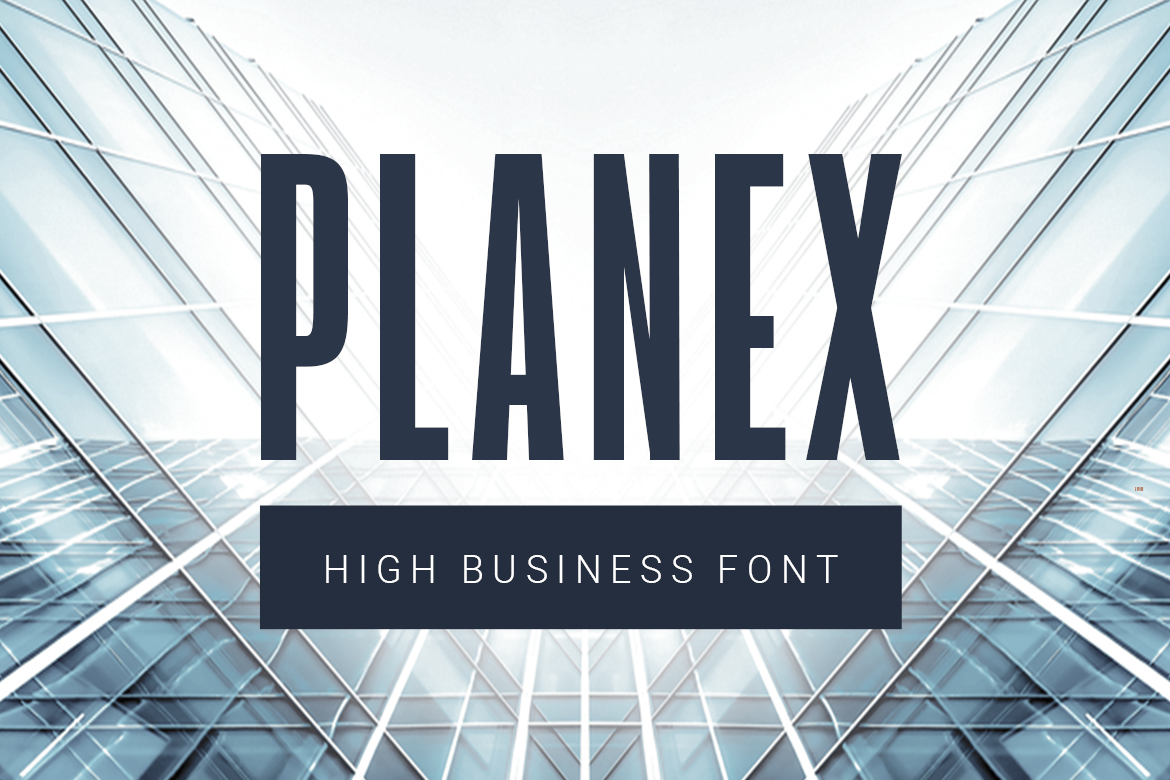
Planex| high business font
Planex is a strong sans serif font designed with high letters. Simple and stylish, it works great to make logos and short titles.
- uppercase letters
- lowercase letters
- numbers & punctuation